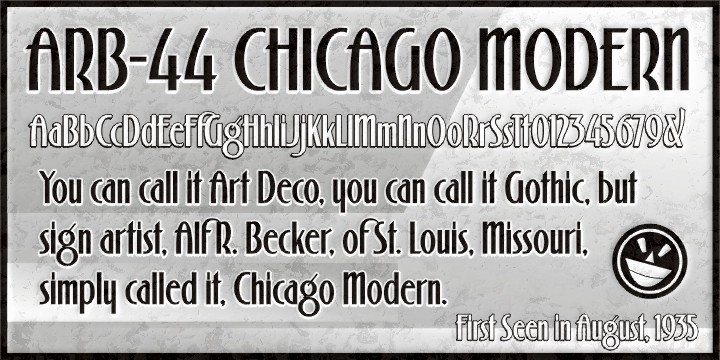
ARB 44 Chicago Modern is a retro, display sans and art deco font family. This typeface has eight styles and was published by The Fontry.
Want to build elegance and sophistication into a font? First, start with a narrow stance. That’s always a strong beginning. Second, look to the past for inspiration. But what if you mix in hints of deco and gently sweeping curves and arches and heavily contrasting thicks and thins? Well, that means it’s August, 1935 all over again, and “SIGNS of the Times” magazine by ST Publications has just released its 44th alphabet by master sign painter, Alf R. Becker.
Beginning in January, 1932, Alf R. Becker of St. Louis Missouri, at the request of then-editor E. Thomas Kelly, supplied “SIGNS of the Times” magazine’s new Art and Design section with an alphabet a month, a project initially predicted to last only two years. Misjuding the popularity of the “series,” it instead ran for 27 years, ending finally two months before Becker’s death in 1959, for a grand total of 320 alphabets, a nearly perfect, uninterrupted run. In late 1941, just ten years after the first alphabet was published, 100 of those alphabets were compiled and published in bookform under the title, “100 Alphabets,” by Alf R. Becker.
As published in August, 1935, this is the description that accompanied Becker’s 44th alphabet, Chicago Modern Thick and Thin:
This is Chicago Modern Thick-and-Thin, alphabet No. 44 in Alf R. Becker’s SIGNS of the Times series. It is one of those styles in which spurs are to be avoided, and in which the letter height should be twice as great as the average width.
Many font designers have tackled converting Becker’s incredible achievement from paper to digital, and many claim to treat his work with care and dignity. But the Fontry’s Becker fonts remain the most historically accurate and viable treatments available, arriving in two industry-satisfying versions: CAS (Computer-Aided Signmaking) and DTP (Desktop Publishing). And as with all Fontry fonts, the kerning is not optional—it’s exceptional-!!!